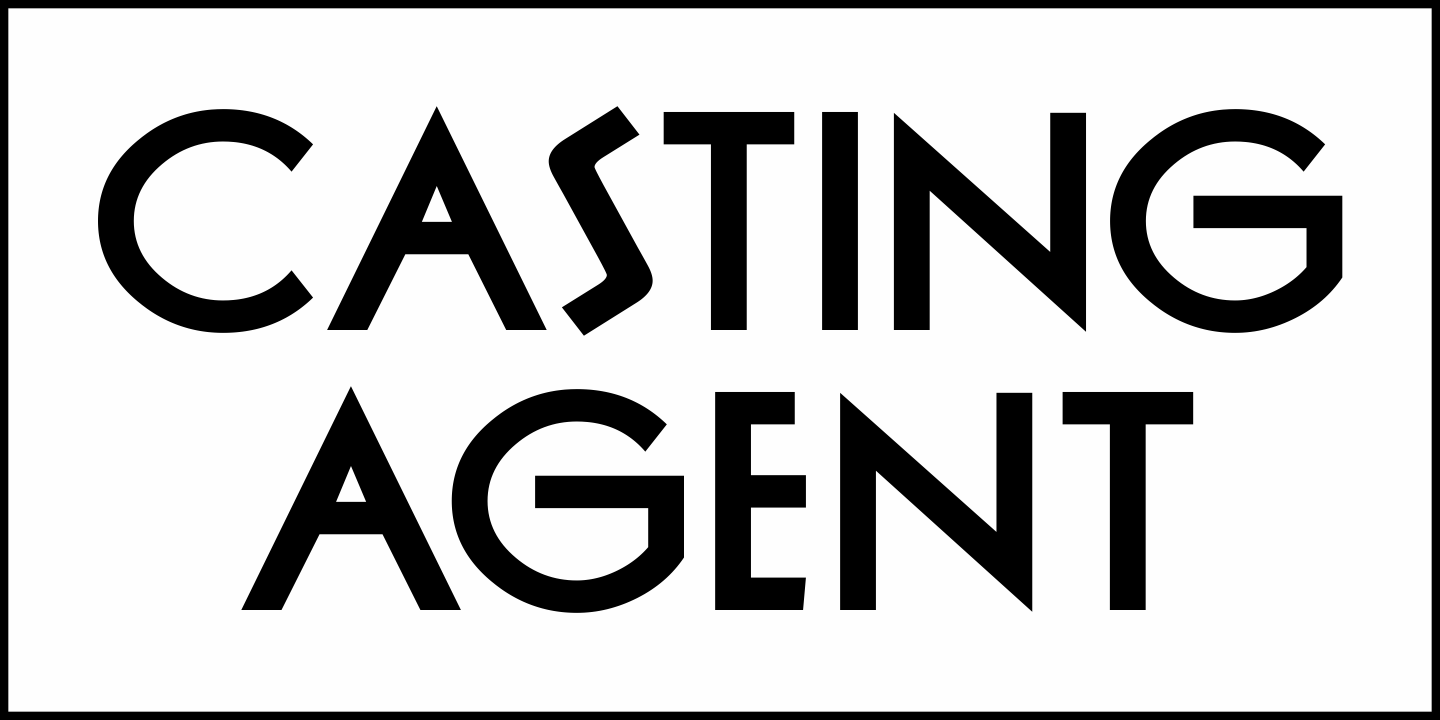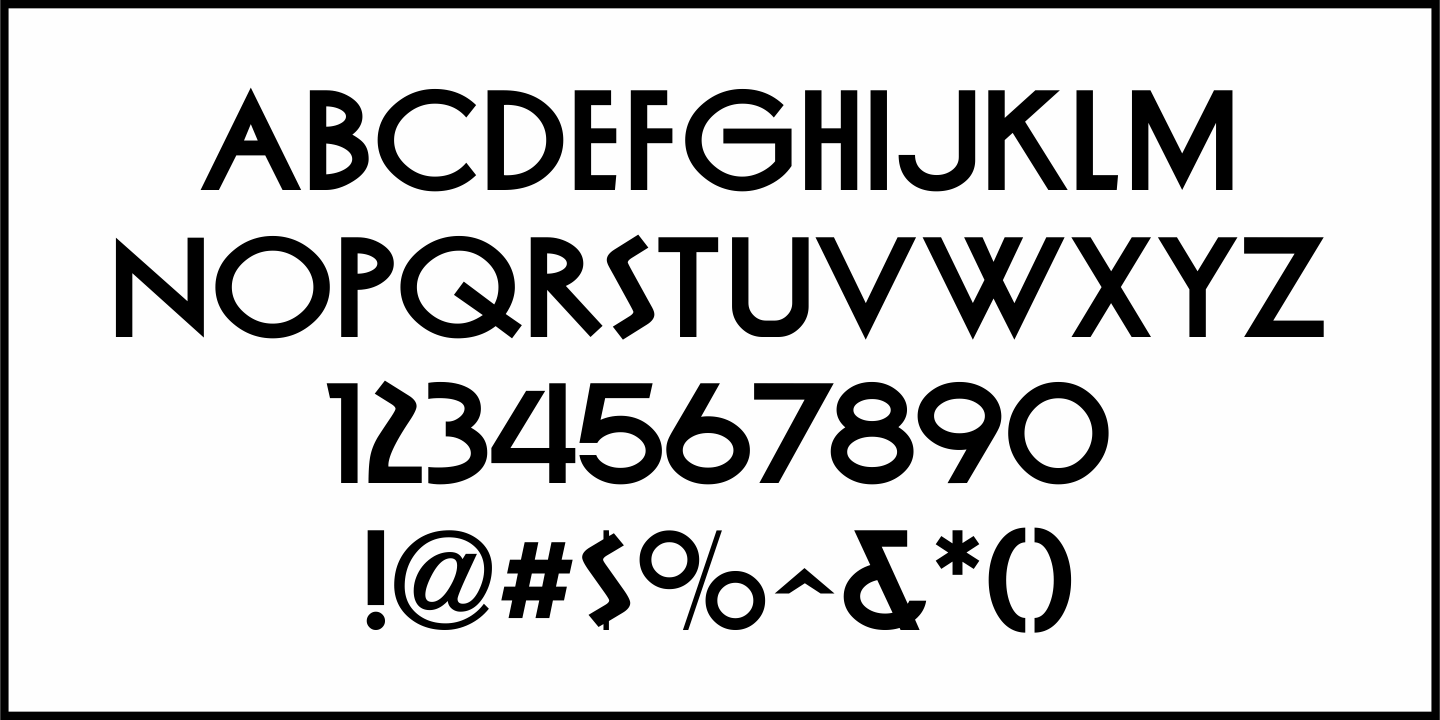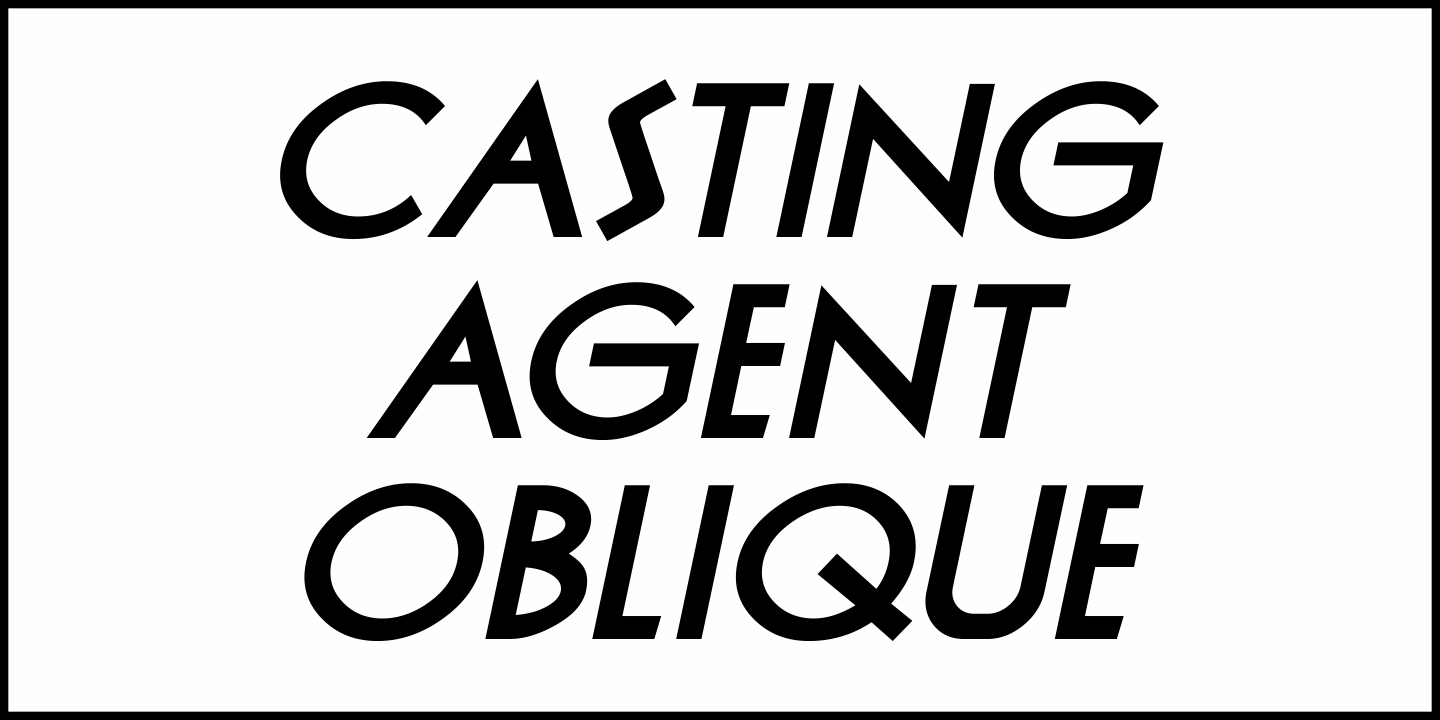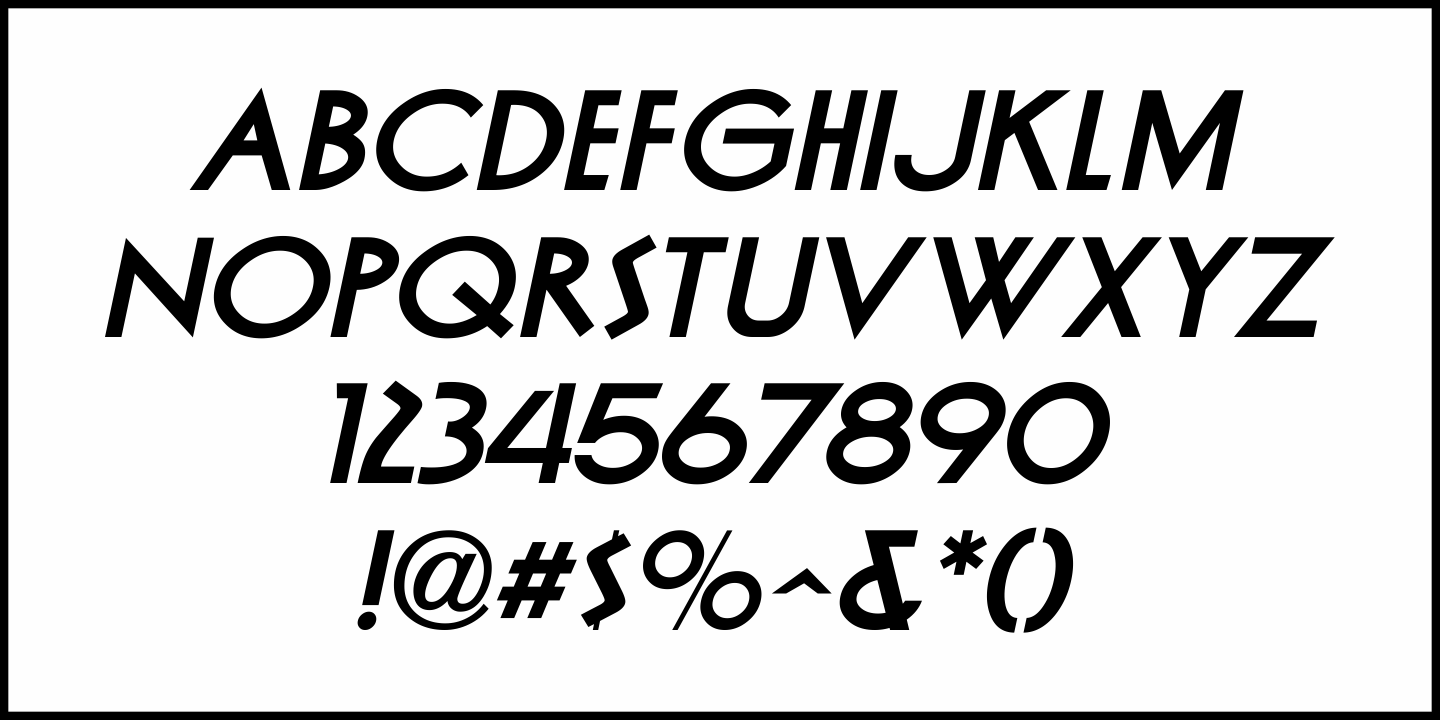
Casting Agent
The Motion Picture News issue of December 14, 1929 carried an ad promoting Universal Pictures. The hand Lettering used within the ad is a pleasant sans serif with just a hint of the newly-emerging Art Deco design movement.
This is now available as Casting Agent JNL in both regular and oblique versions.
Casting Agent JNL Regular by Jeff Levine Fonts